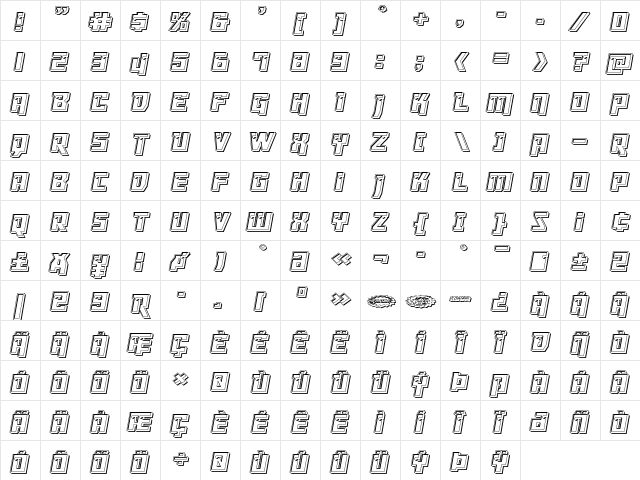
Dangerbot Engraved Regular
Design Context for Dangerbot Engraved Typeface
Dangerbot Engraved is built around its visual character rather than neutral utility — its distinctive forms are designed to make an impression at display sizes.
Font Pairing: Pair with a clean neutral sans-serif for body copy to let Dangerbot Engraved's character lead without overwhelming the composition.
Pro Tip: Treat Dangerbot Engraved as the centrepiece of your typographic hierarchy. One strong heading set in a decorative face can carry an entire layout.